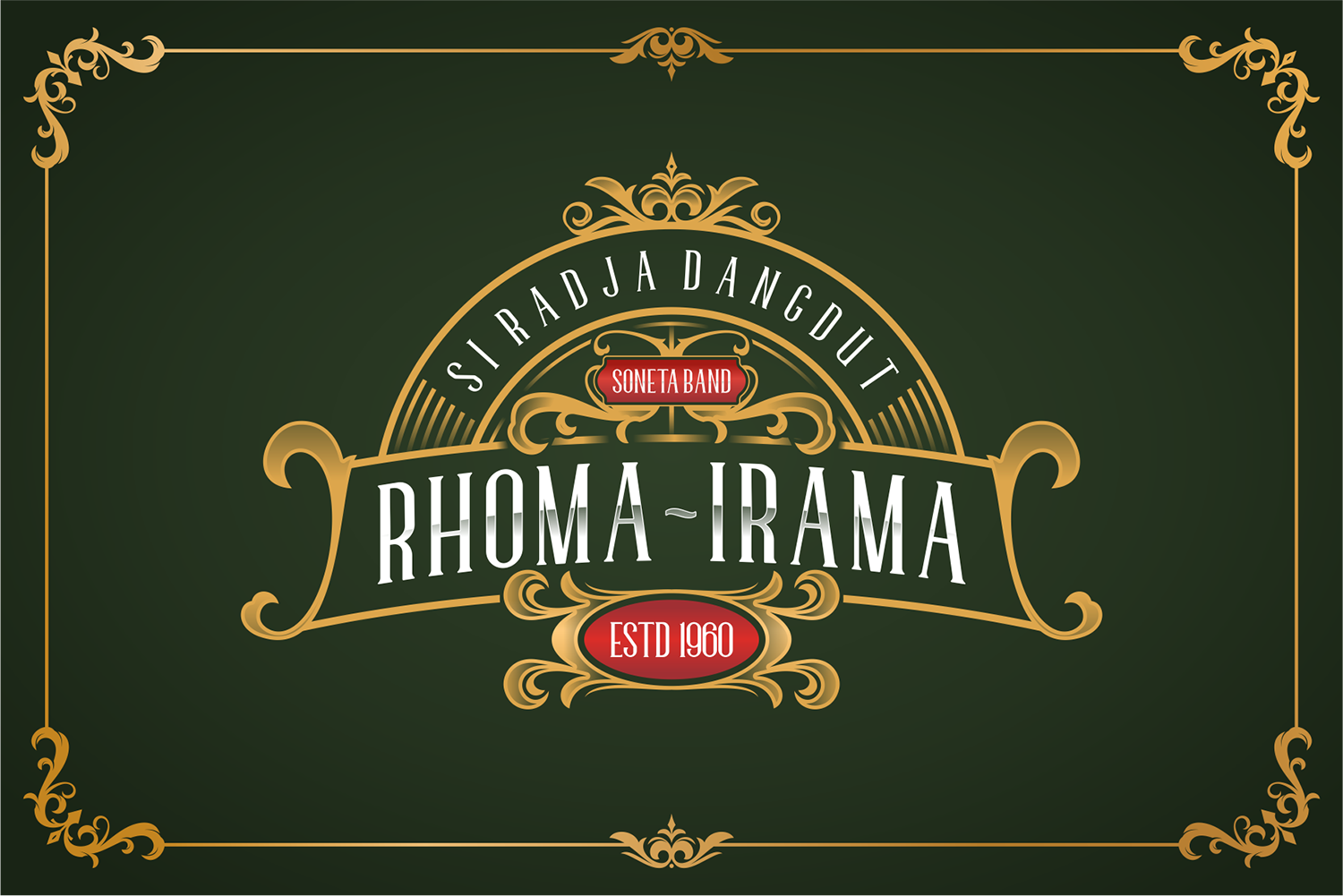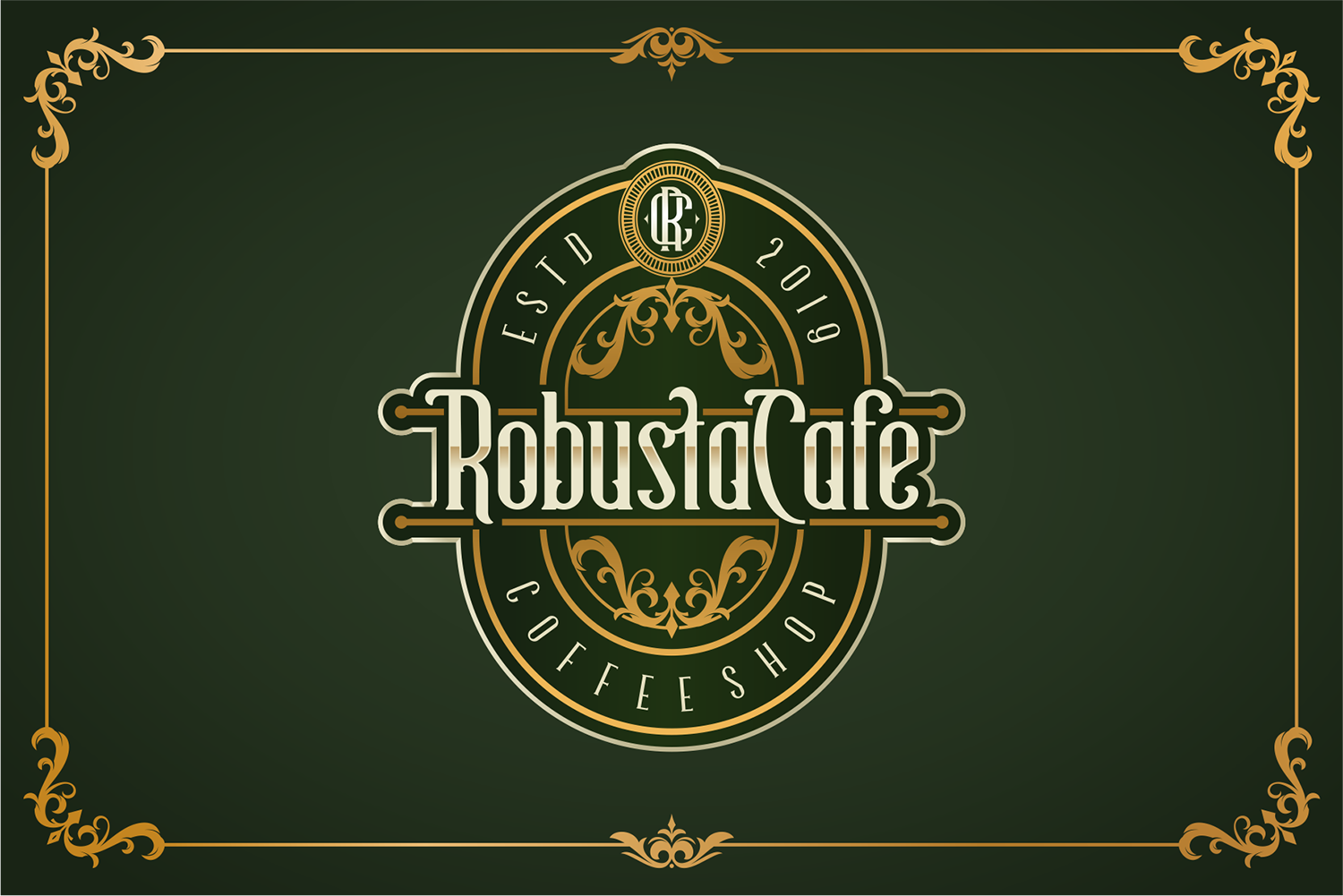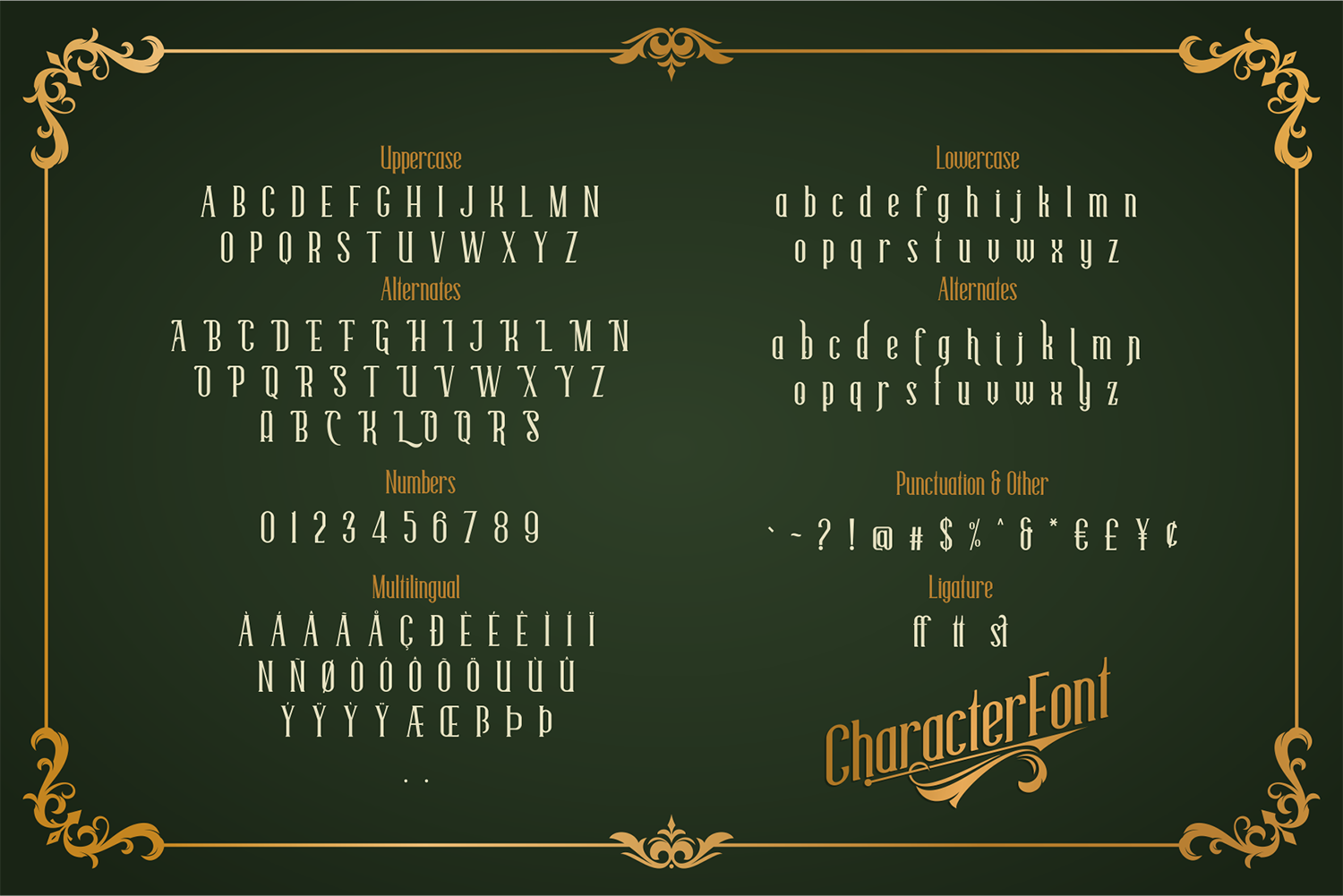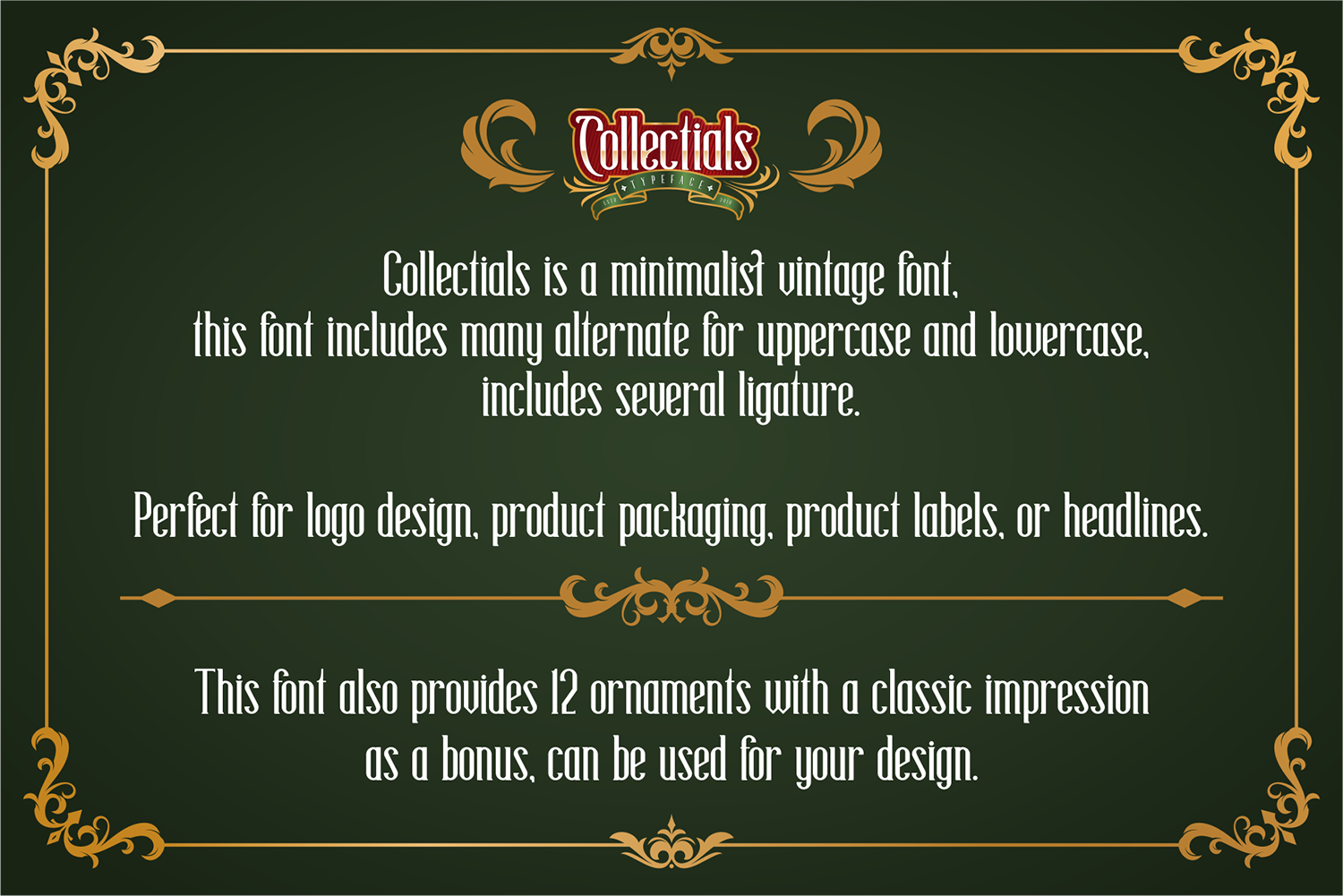
Collectials Classic Free Font
Collectials Classic Free Font are classic fonts with a minimalist design, with Uppercase and Lowercase available. This free typeface was designed by the talented Kotak Kuning. If you like it don’t forget to check out the full version.